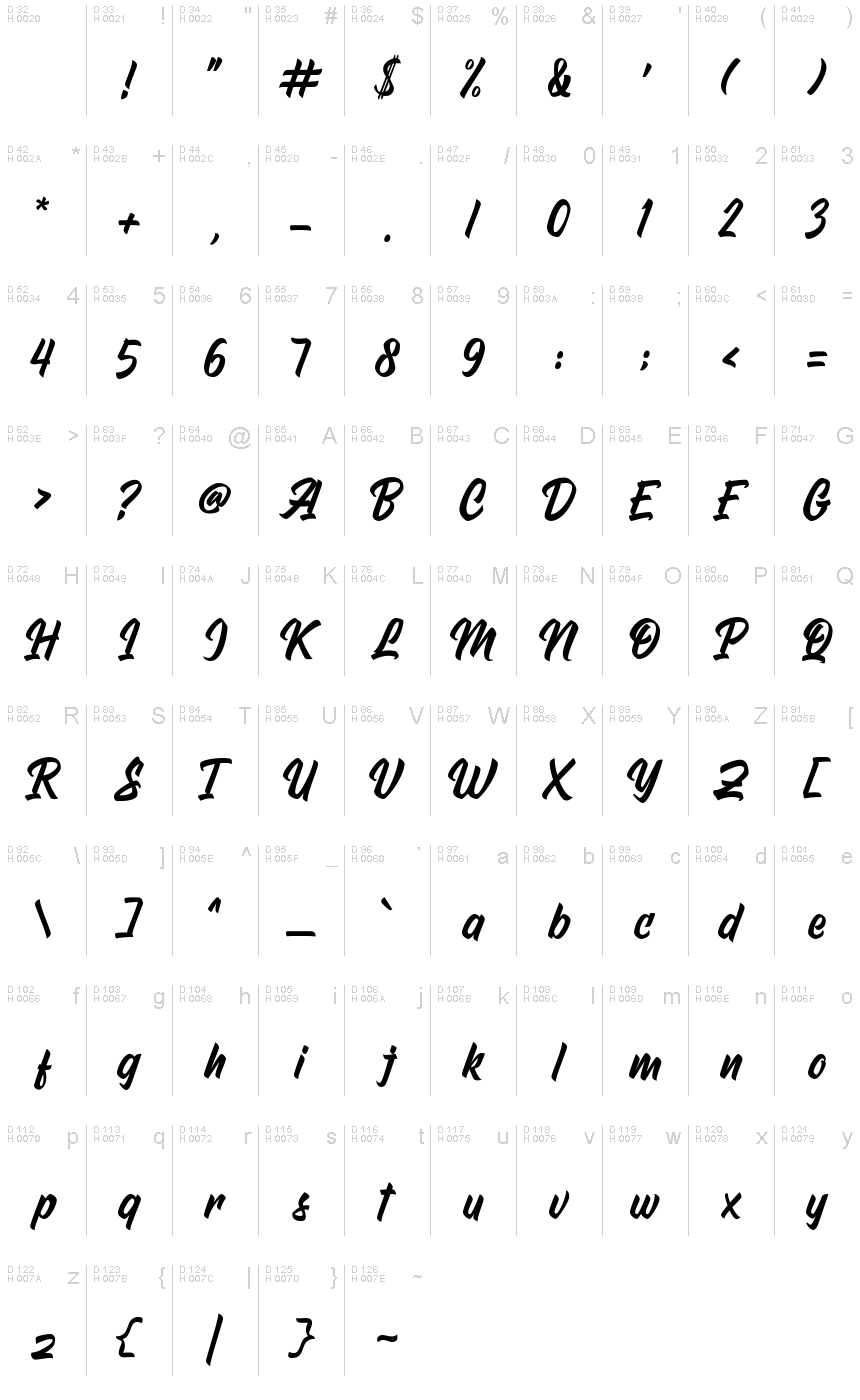
Masbrushy
Masbrushy font is designed by Sesa Grafika. Masbrushy Font is a free handwritten brush font for personal use accentuated with curves, lines and strokes with a medium contrast and intricate details in compositions that evoke an harmonious dynamic feeling to your text evocatively.
This playfully spirited casual handwritten typeface is the perfect choice for designs from social media branding projects, product packaging to personal quotes, legend image text overlaying images and so many more!